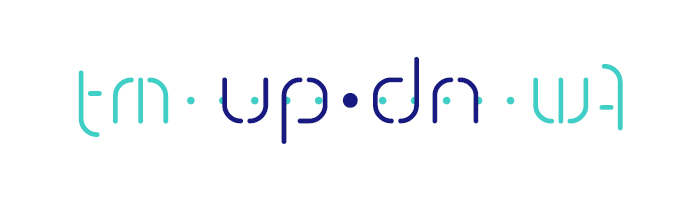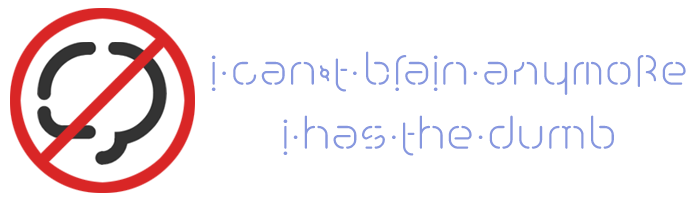
• from the category of 'also ran'
Only interesting in theory; the practical application leaves a lot to be desired. Incomplete as well. Only sharing now because vacations are over. Back to work from tomorrow moring. Won't really have time to work on this in any meaningful way anymore. Unless inspiration strikes out of somewhere and I am able to stay awake past my bedtime.
Every glyph has a counter rotated glyph or has self rotational symmetry—all except the c, which remains a loner loser.
paired rotational glyphs: ae bq dp ft hy jr mw nu G9 JR NV 25
self rotational symmetric glyphs: g i k l o s x z Q S Z ! & , '
Side story on the making: This fontstruction is deceptively simple. It was quite a challenge to execute. Just because the strokes seem flowing doesn't mean they are all placed in the logical grid block. The rounded-off ends forced the bricks to be placed in any of the 8 adjoining blocks and nudged into place. Consequently, due to the nature of nudge only moving as much as half a block in any direction, some compromises had to be made in the shapes.
A perfect ambigram font. Cool!
Great samples that beautifully show how well this was put together. I would love to spend some time with this to find matching pairs of words.
9/10 Maybe you can think of full numerals, you can put the flipped 2 in the @ glyph
Congratulations on the Honorable Mention. In this design deviating from established letter shapes has added to the visual flow without reduction of meaning.
@four: Try: sales, evilina, lol, axe, haley, pod, axe. I'm sure others are possible as well. Thanks.
gives me puzzle game vibes
where's 0, 1, 3, 4, 6, 7, and 8?
@Bernat Jansà Pascual: It can't form an ambigram
Except 8